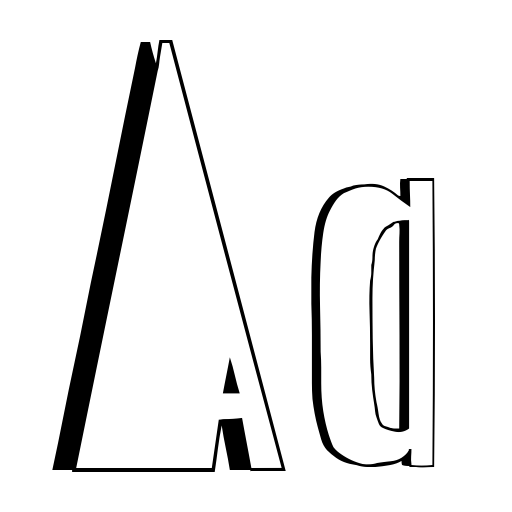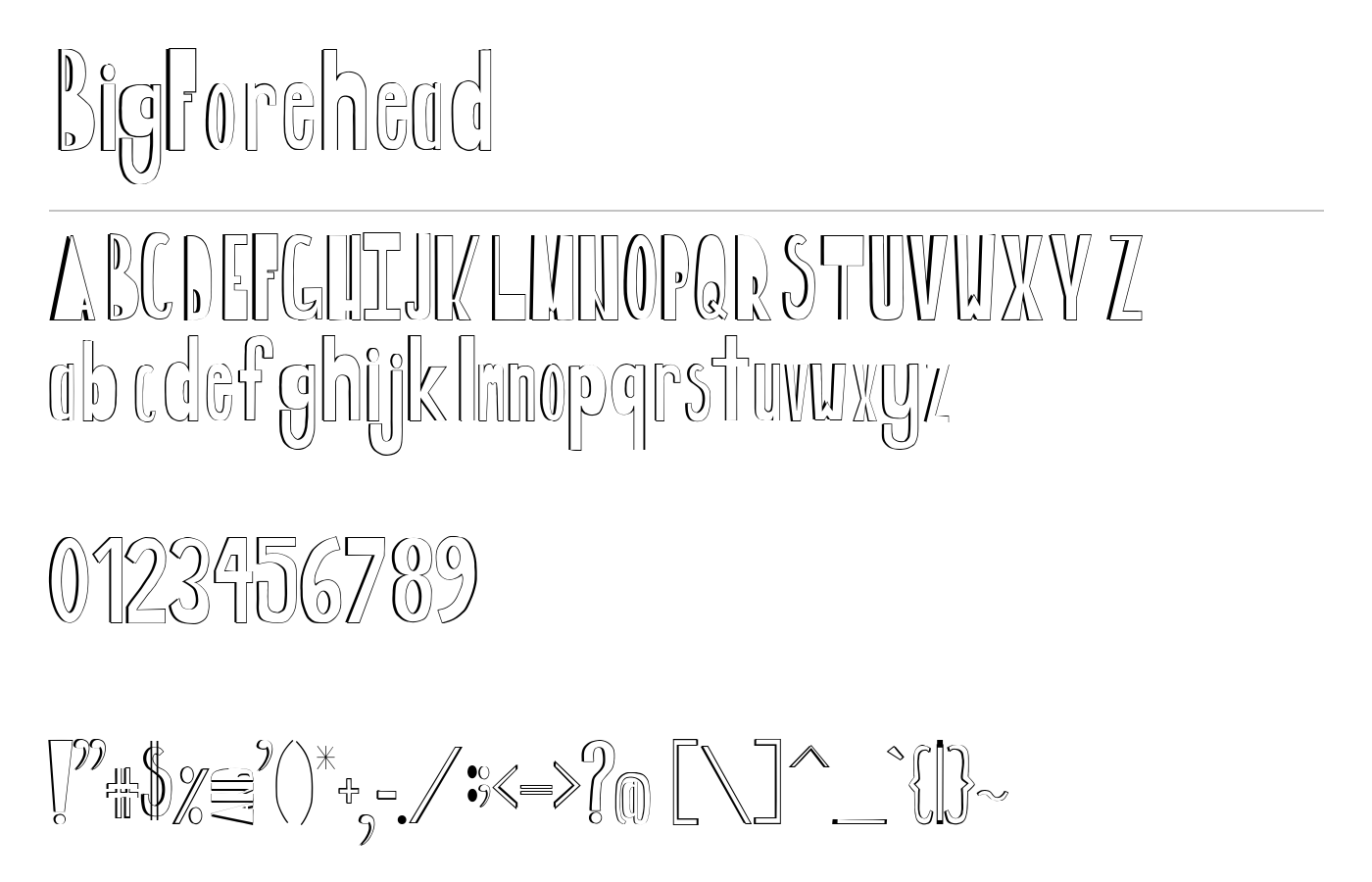
BigForehead is a distinctive sans serif font with a tall, narrow silhouette and striking high contrast between its thick and thin strokes. Its sharp, geometric letterforms feature playful details such as exaggerated vertical lines and unique shapes, making it ideal for eye-catching headlines and creative branding. This font brings a modern, artistic vibe that works well for fashion labels, posters, and editorial designs where standout style is key.
BigForehead Font
About BigForehead Font